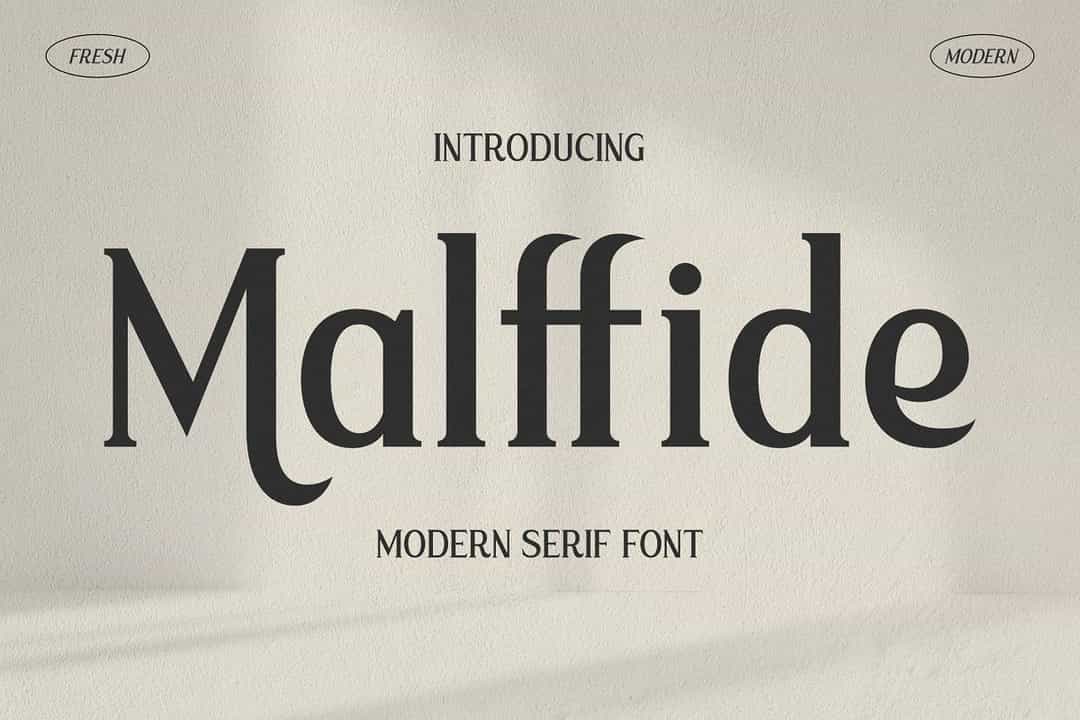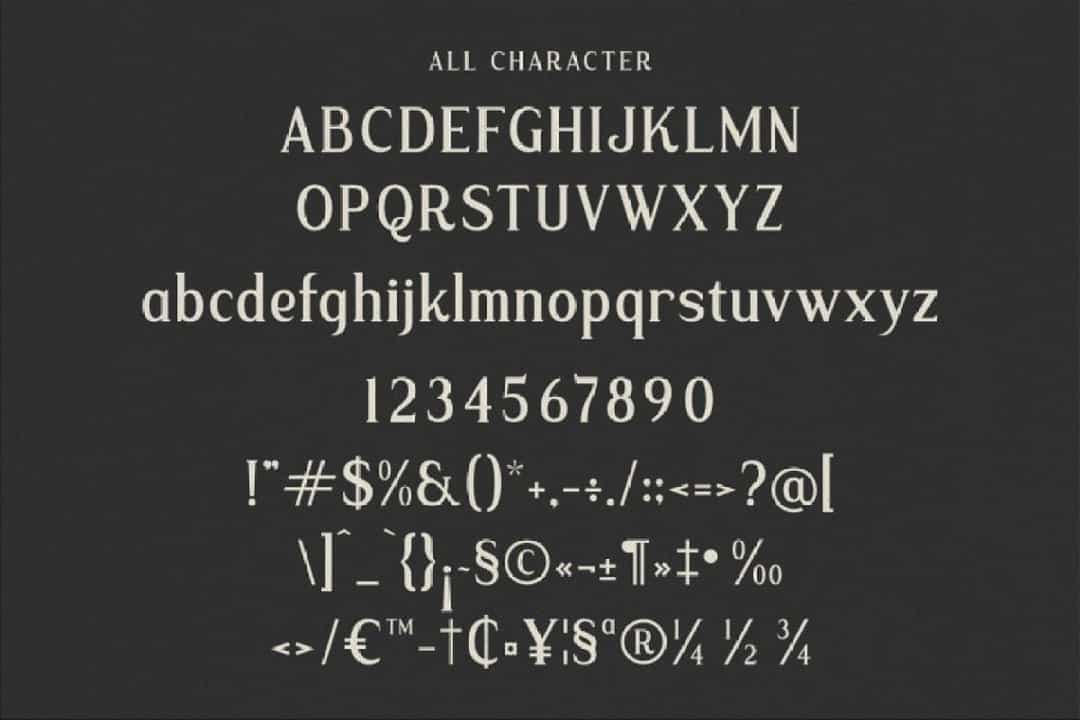
Malffide Font, created by Storytype, is an elegant serif typeface featuring its own distinctive style and contemporary feel. Perfect for logos, book titles or film titles design, fashion brand clothes design, magazines or lettering as well as quotes.